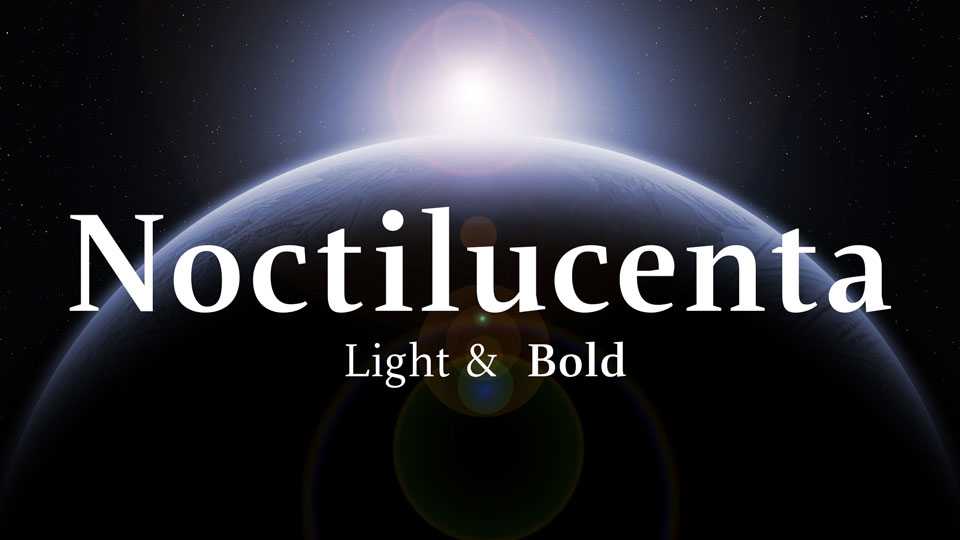
Download Noctilucenta typeface, a beautiful classic serif font family in two weights and matched Italics. Noctilucenta works well both for texts and headlines, is great for wide range design purposes.
Designer: Kelvin Song